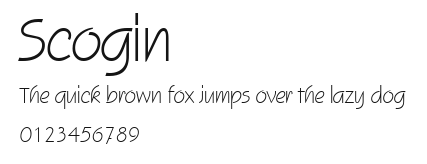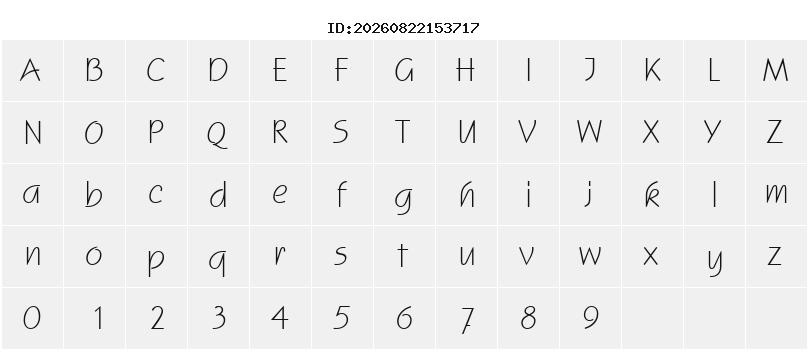
• Font Name: Scogin
• Full Font Name: Scogin
• PostScript Name: Scogin
About Scogin.ttf
Scogin.ttf is a modern, elegant sans-serif font designed for ultimate readability and visual harmony. Perfect for branding, headlines, web design, and print materials.